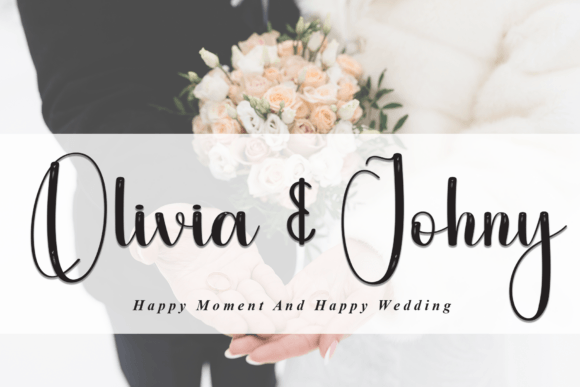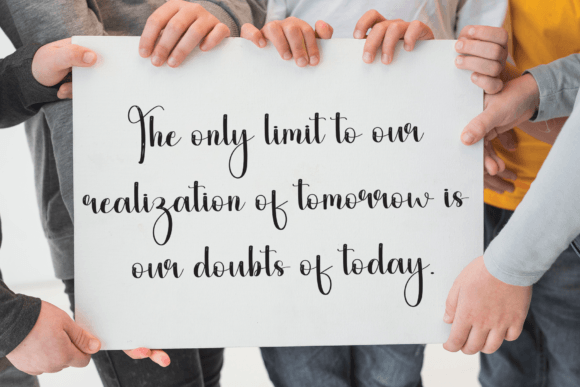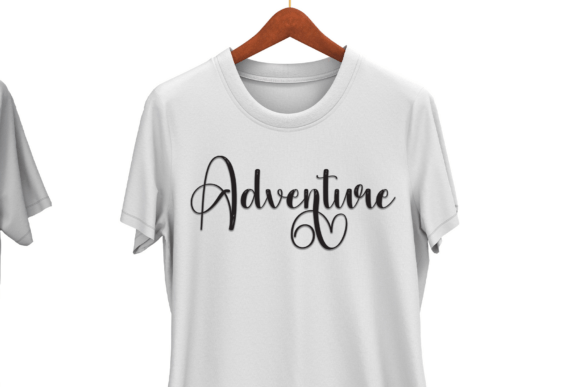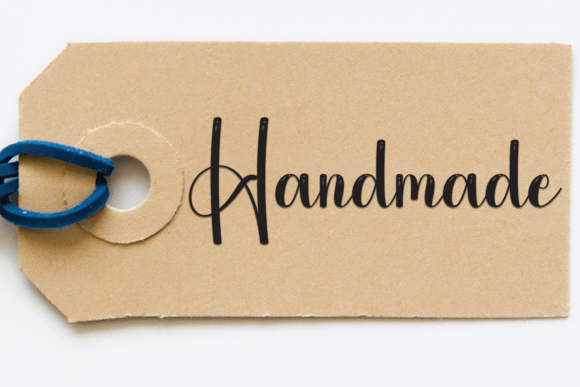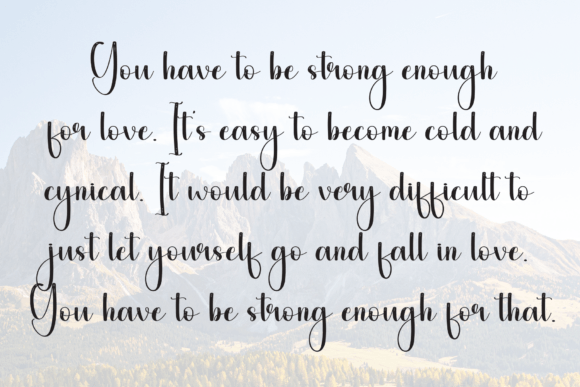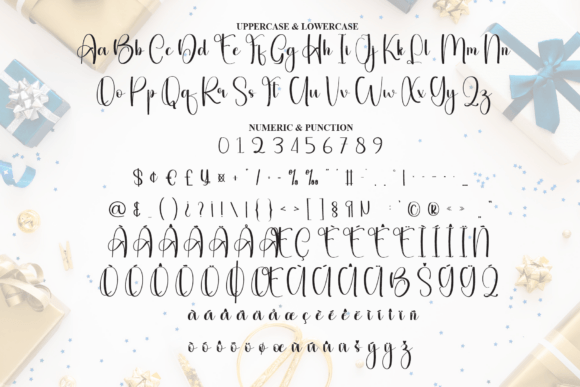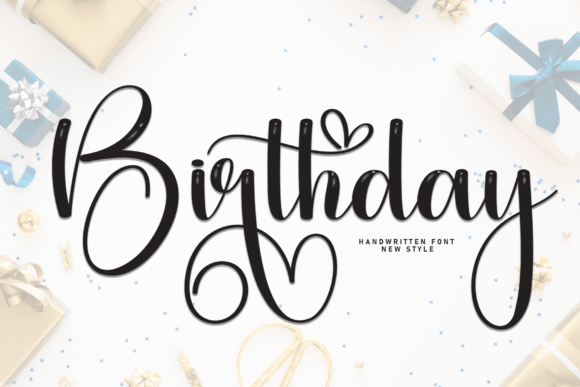
Introducing Birthday Font: The Sweetest Handwritten Display Font for Your Designs
Are you looking for a font that can add a touch of warmth and playfulness to your designs? Look no further than Birthday Font, a charming and amiable handwritten display font that’s perfect for creating heartwarming wedding invitations, whimsical cards, and other design projects that need a sprinkle of fun!
A Font that Oozes Sweetness
Birthday Font is a beautifully crafted font that’s designed to bring a smile to your face. Its playful nature and sweet aesthetic make it perfect for designers and crafters who want to create designs that are both visually appealing and emotionally resonant. Whether you’re creating a wedding invitation, a birthday card, or a social media graphic, Birthday Font is sure to add a touch of magic to your design.
Perfect for Wedding Invitations and Whimsical Cards
One of the best things about Birthday Font is its versatility. It’s perfect for creating heartwarming wedding invitations that set the tone for a joyful and celebratory occasion. The font’s playful nature also makes it ideal for whimsical cards, such as birthday cards, anniversary cards, and get-well cards. With Birthday Font, you can create designs that are both personal and professional, and that will leave a lasting impression on your recipients.
Adds an Element of Joy and Lightheartedness
Birthday Font is more than just a font – it’s an experience. When you use this font in your designs, you’re not just adding a visual element, you’re also infusing your design with an element of joy and lightheartedness. This font has the power to transform your designs from ordinary to extraordinary, and to make your recipients feel special and appreciated.
Why Designers and Crafters Love Birthday Font
So, why do designers and crafters love Birthday Font? Here are just a few reasons:
- Playful and whimsical: Birthday Font has a playful and whimsical nature that’s perfect for creating designs that are fun and lighthearted.
- Beautiful to look at: This font is a feast for the eyes, with its beautiful handwritten letterforms and sweet aesthetic.
- Versatile: Birthday Font can be used for a wide range of design projects, from wedding invitations to social media graphics.
Tips and Tricks for Getting the Most out of Birthday Font
Here are a few tips and tricks for getting the most out of Birthday Font:
- Use it sparingly: While Birthday Font is beautiful, it can be overwhelming if used too much. Use it sparingly to add a touch of sweetness to your design.
- Pair it with other fonts: Birthday Font pairs well with other fonts, such as sans-serif fonts and script fonts. Experiment with different pairings to find the one that works best for your design.
- Experiment with colors: Birthday Font looks great in a variety of colors, from bright and bold to soft and pastel. Experiment with different colors to find the one that works best for your design.
In conclusion, Birthday Font is a charming and amiable handwritten display font that’s perfect for designers and crafters who want to add a touch of sweetness and playfulness to their designs. With its playful nature, beautiful aesthetic, and versatility, Birthday Font is sure to become a favorite in your font collection. So why wait? Download Birthday Font today and start creating designs that are both visually appealing and emotionally resonant!